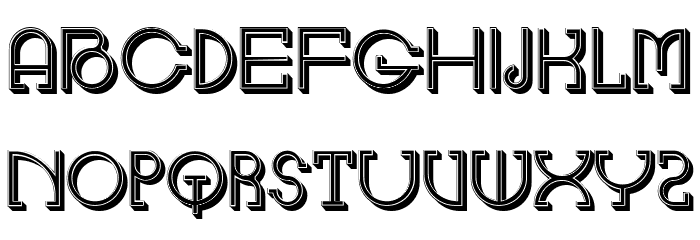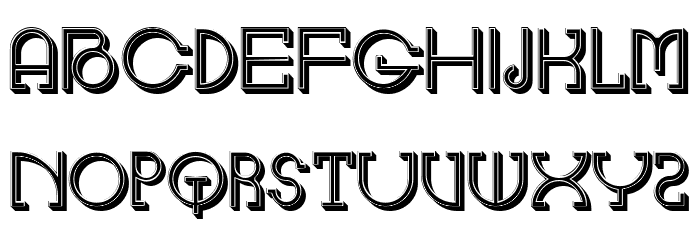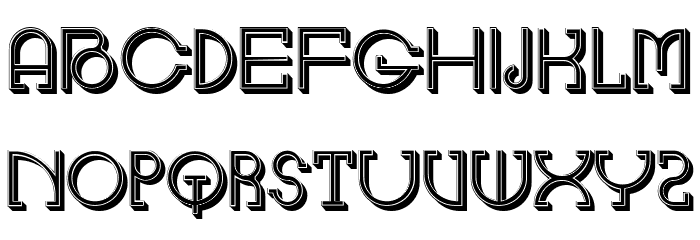
Dames Sensibles Regular Font
This font features a unique blend of geometric and decorative elements, creating a striking visual impact. The characters are outlined with a bold, double-line structure that adds depth and dimension. The design incorporates sharp angles and circular motifs, giving it an art deco feel. The uppercase letters exhibit a strong presence, while the lowercase letters maintain a consistent style. The numbers and special characters follow the same design principles, ensuring a cohesive look across all elements.
A bold, geometric font with art deco influences and decorative outlines.
- Proposed Projects: Ideal for branding, posters, and editorial design where a bold statement is needed.